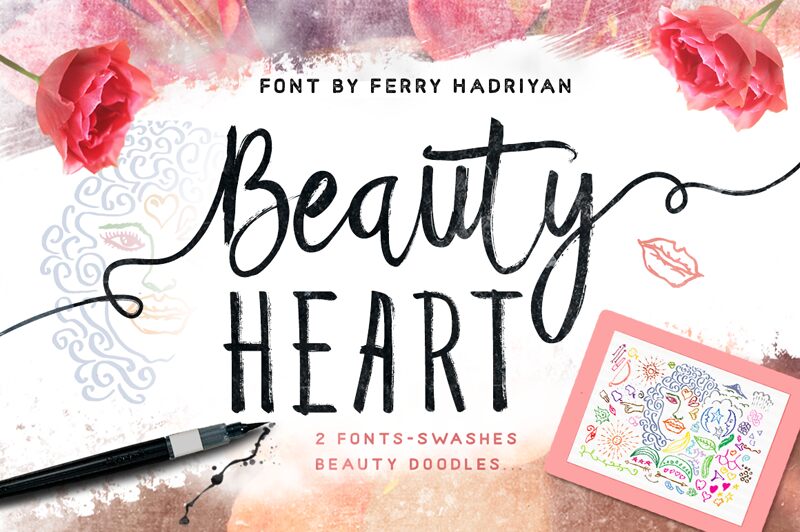
Beauty Heart font, crafted by Ferry Hadriyan of FHFont, captivates with its enchanting handwritten style. The fluid strokes and whimsical curls evoke a sense of warmth and elegance, making it an ideal choice for inviting design projects. Its expressive character lends a personal touch that resonates deeply with viewers, while the lighter sections contrast beautifully against the bolder curves, creating a rhythmic flow that enhances readability.
This font shines in romantic invitations, charming greeting cards, or playful branding initiatives, where emotional connection is key. Its artistic flair makes Beauty Heart not just text but an experience-perfect for enhancing visual storytelling across various creative contexts. Allow this delightful typeface to be the heart of your design narrative.